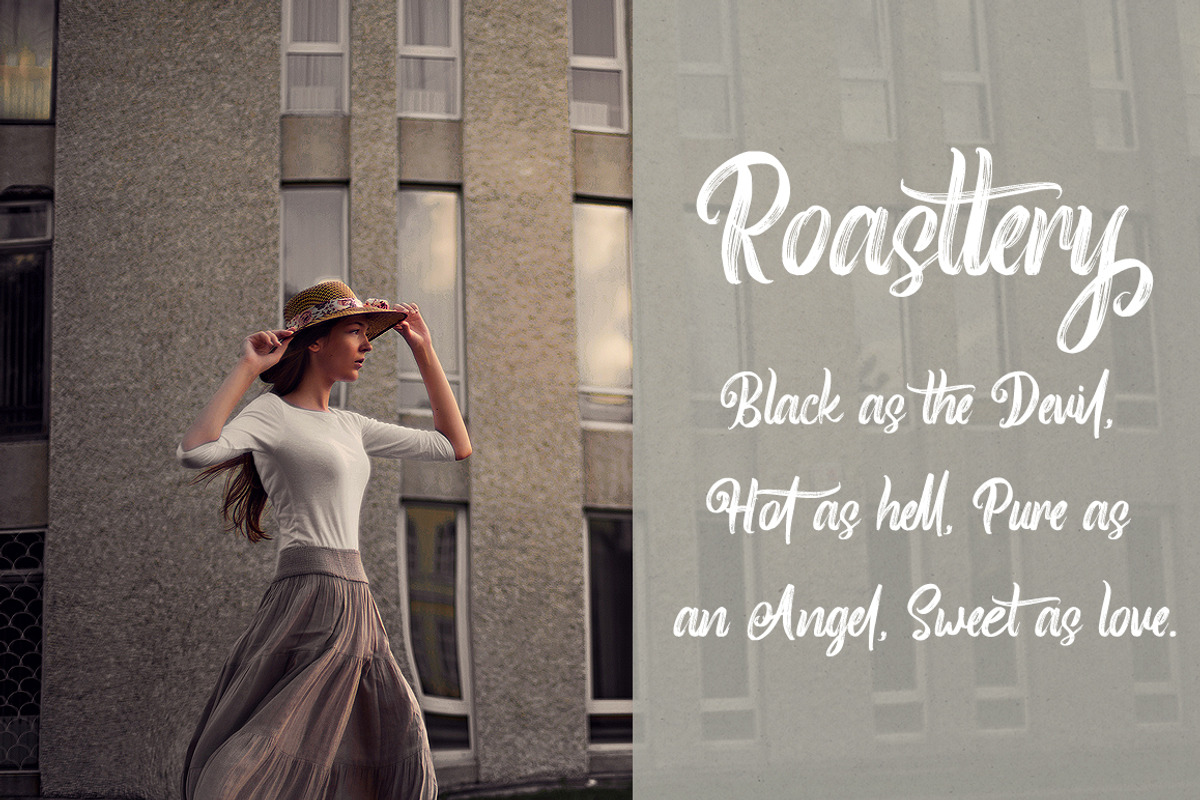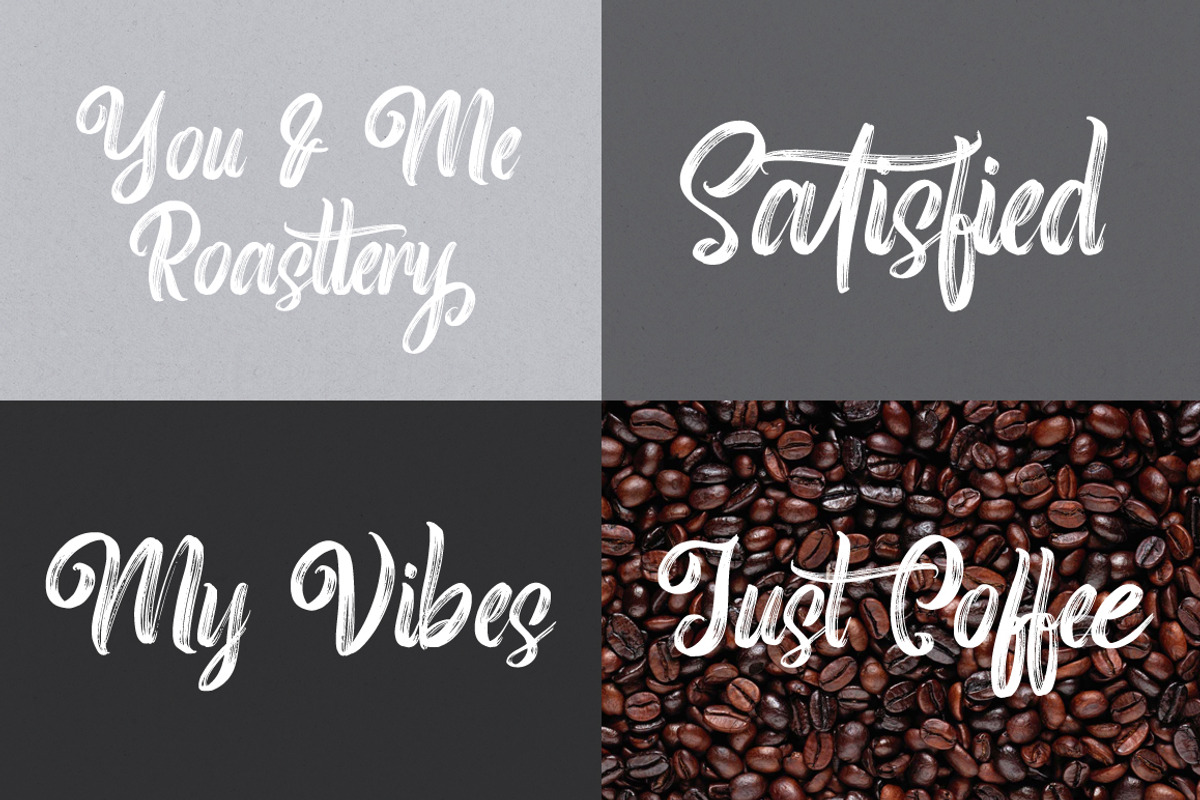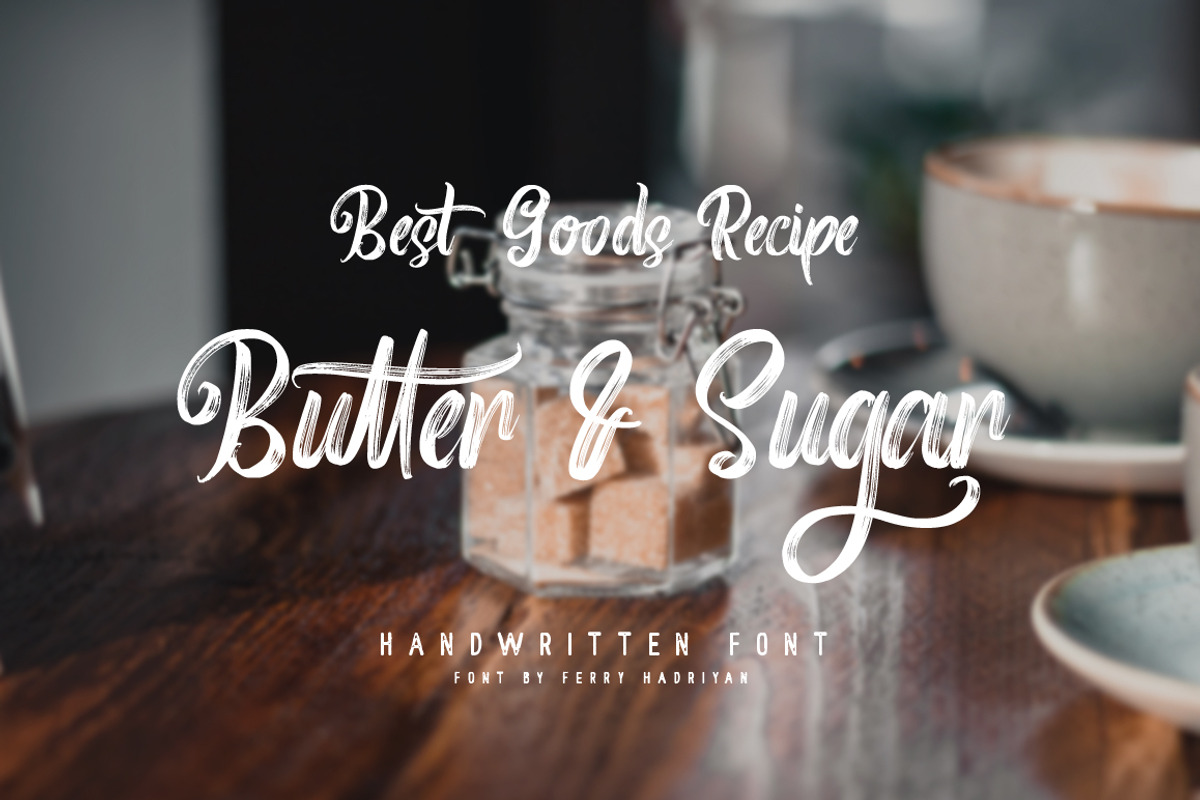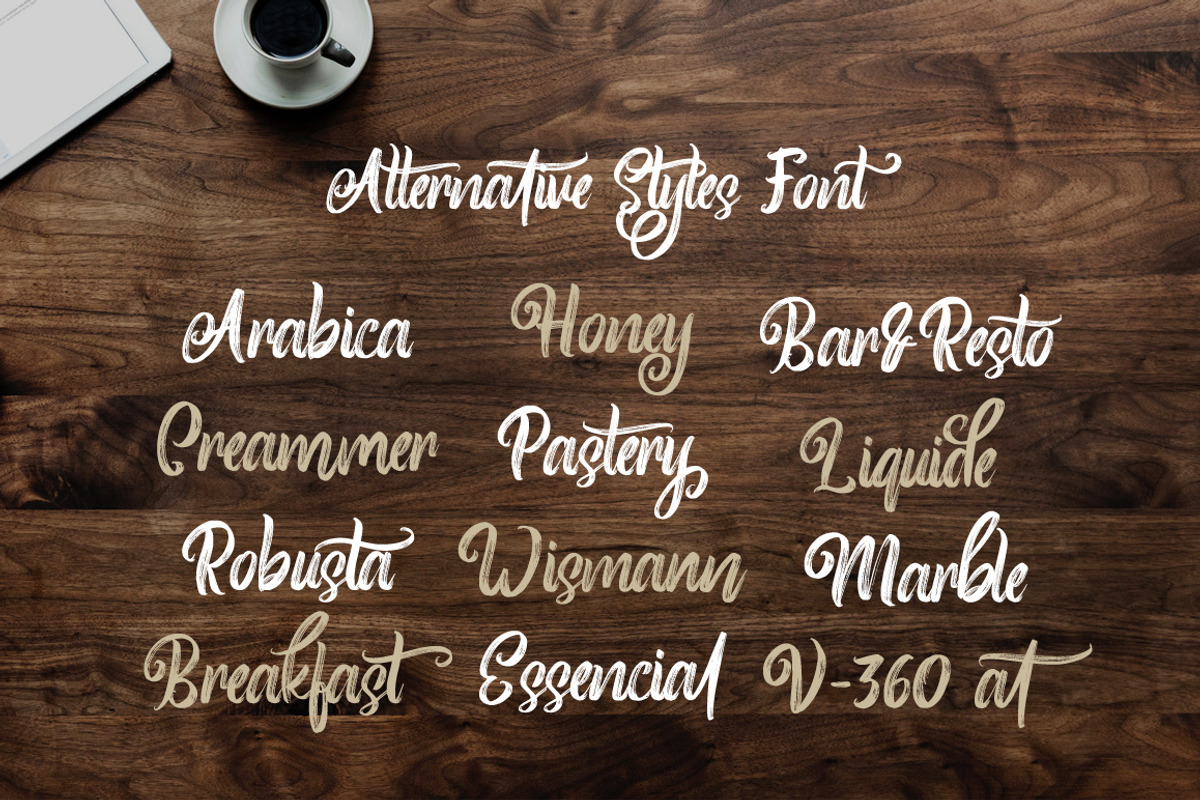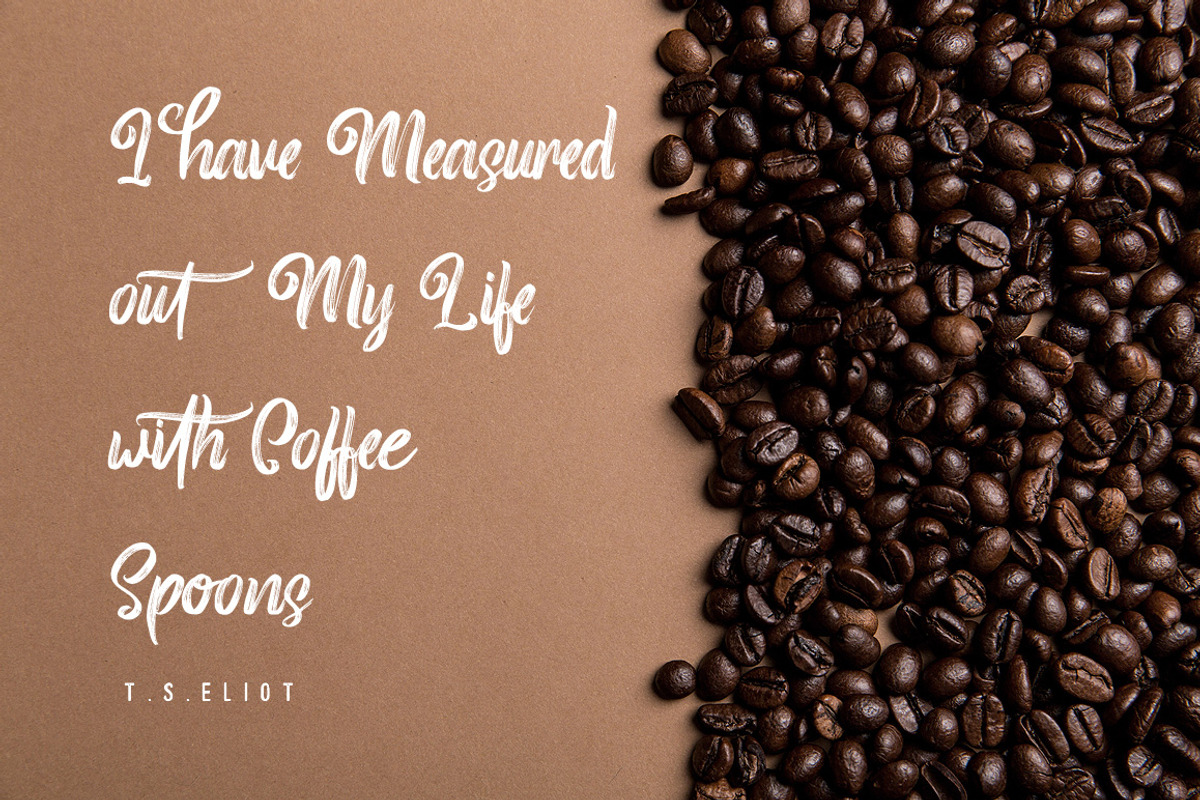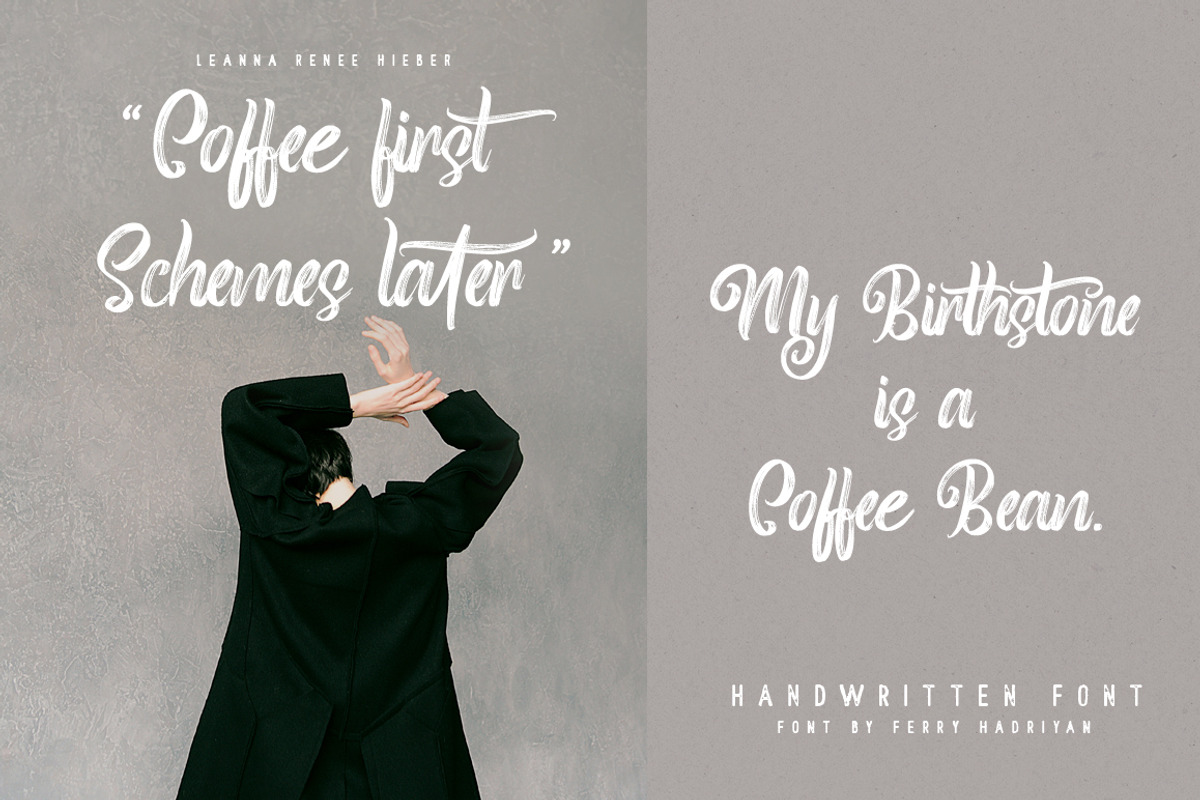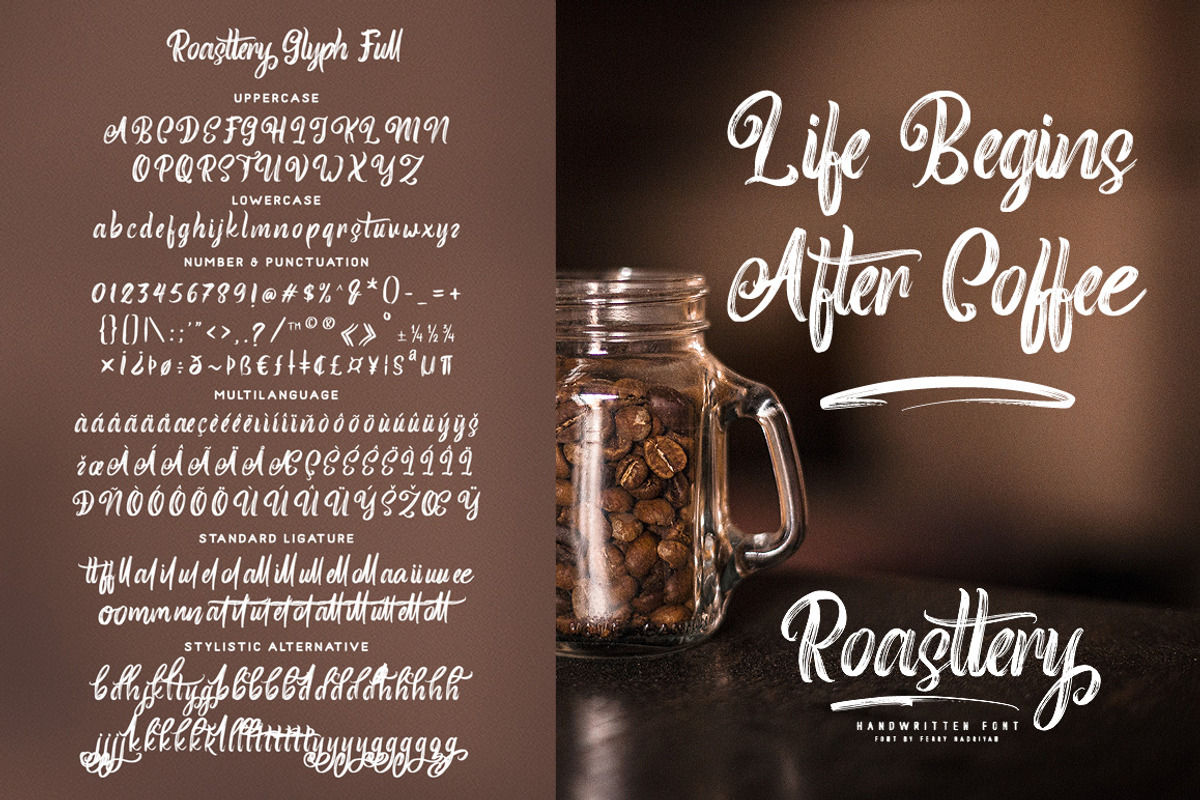
Roasttery - Handwritten Font
Roasttery is Script Font with Handlettering Brush Style, with opentype feature include of the font. Suitable for design, element design, wedding, event, t-shirt, logo, badges, sticker, and awesome work, etc...